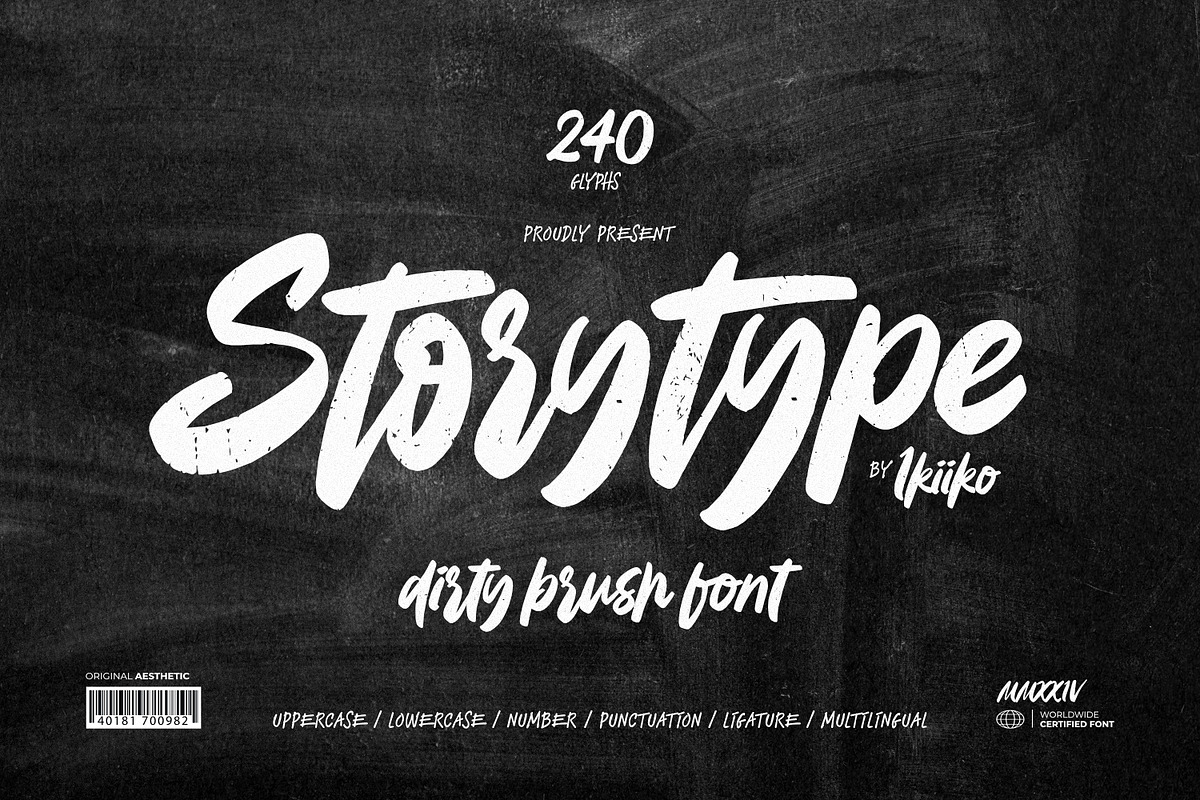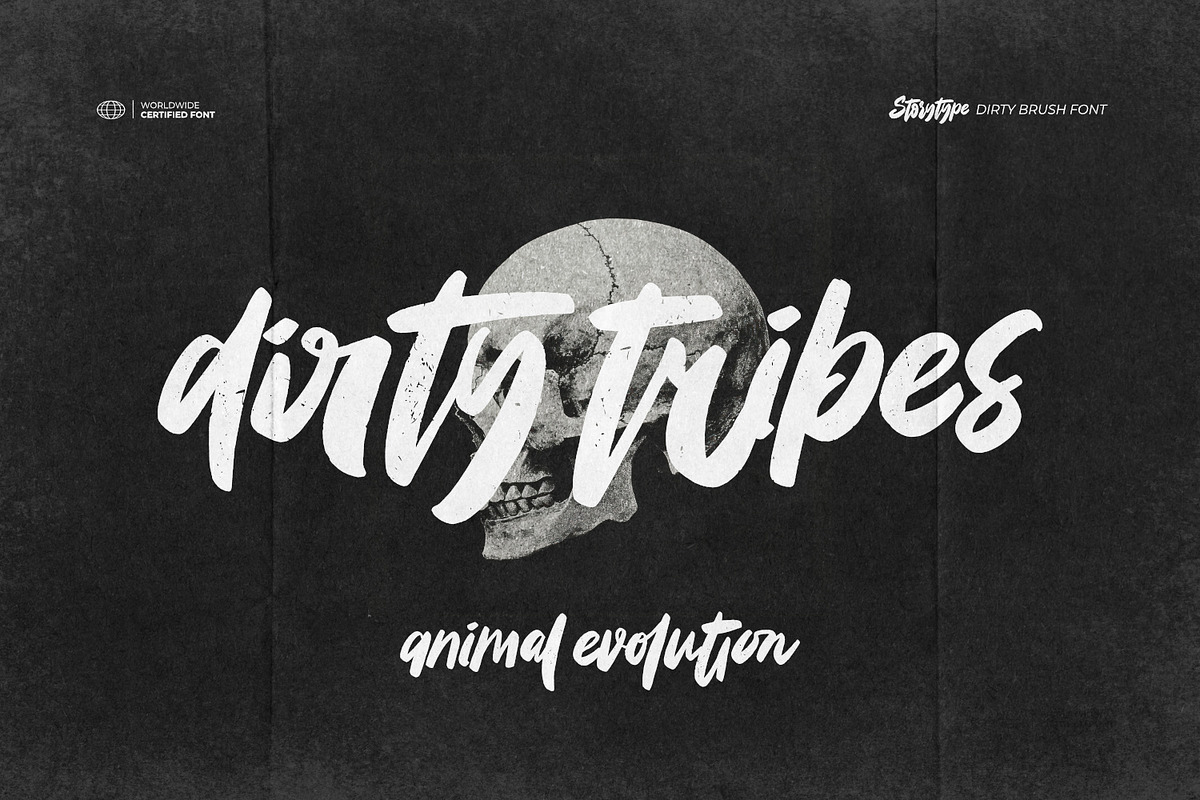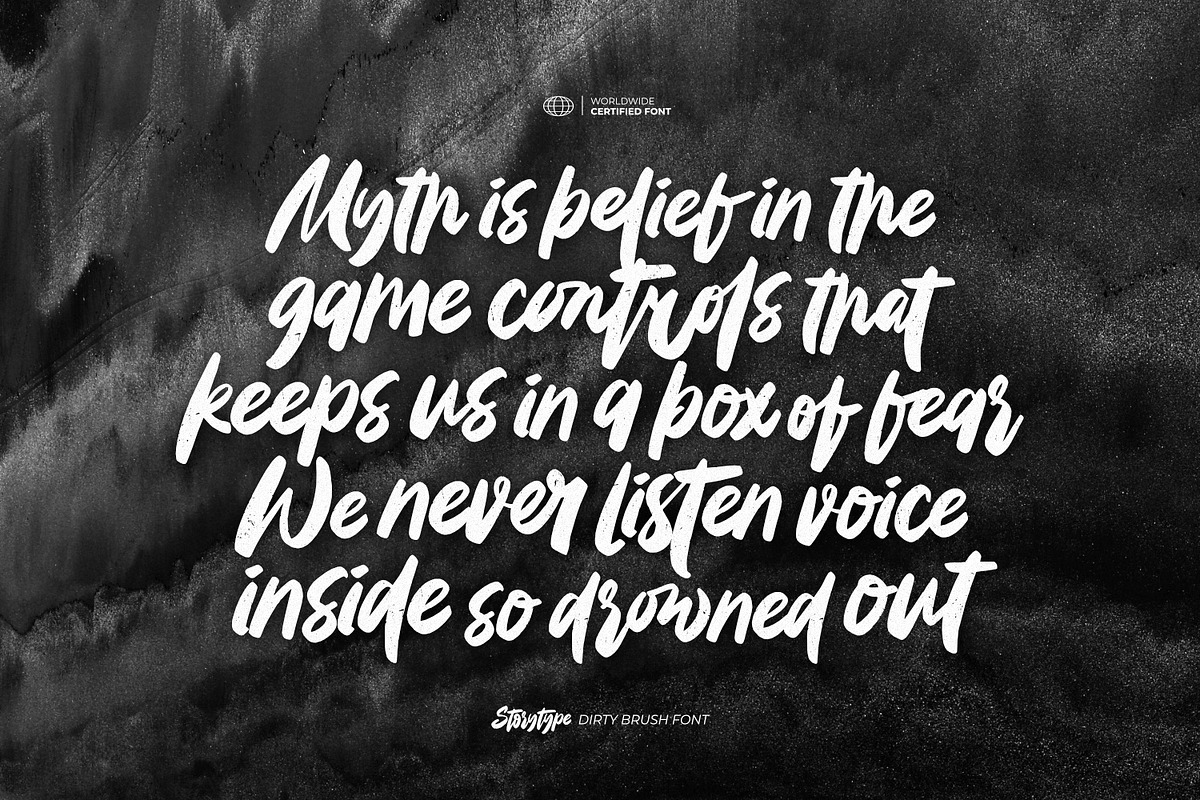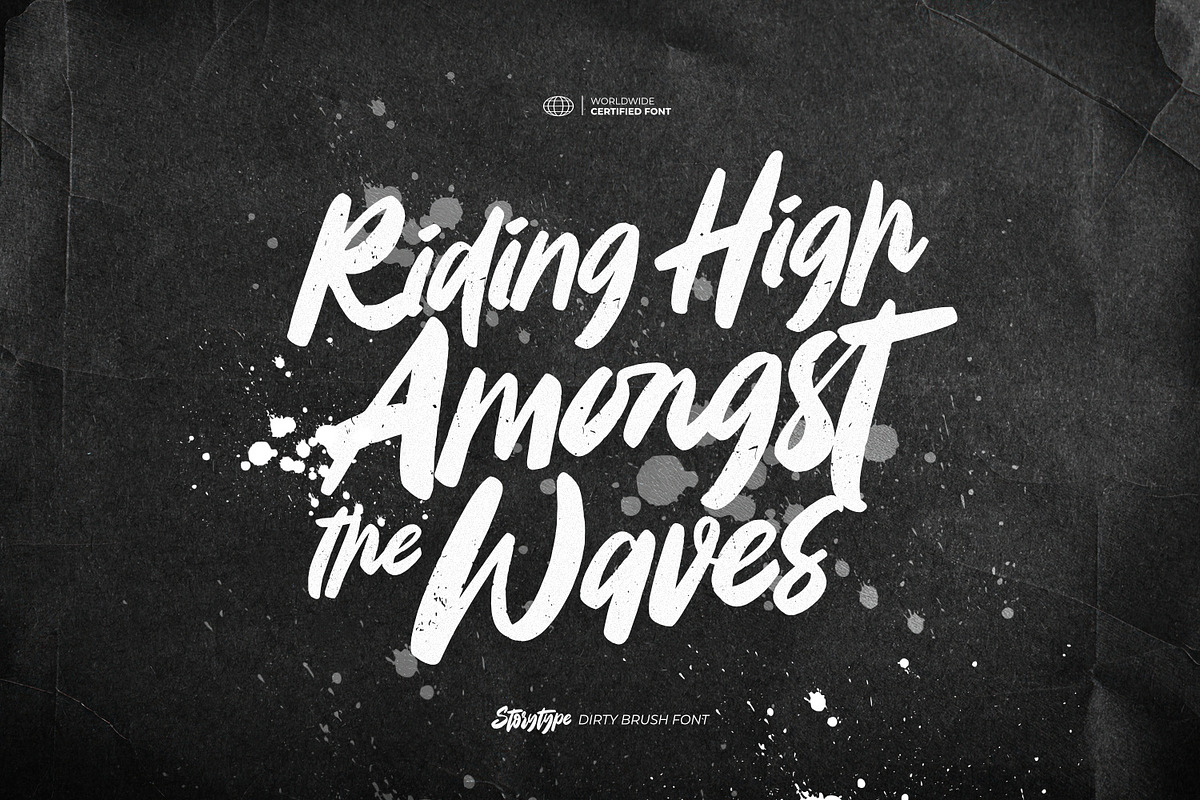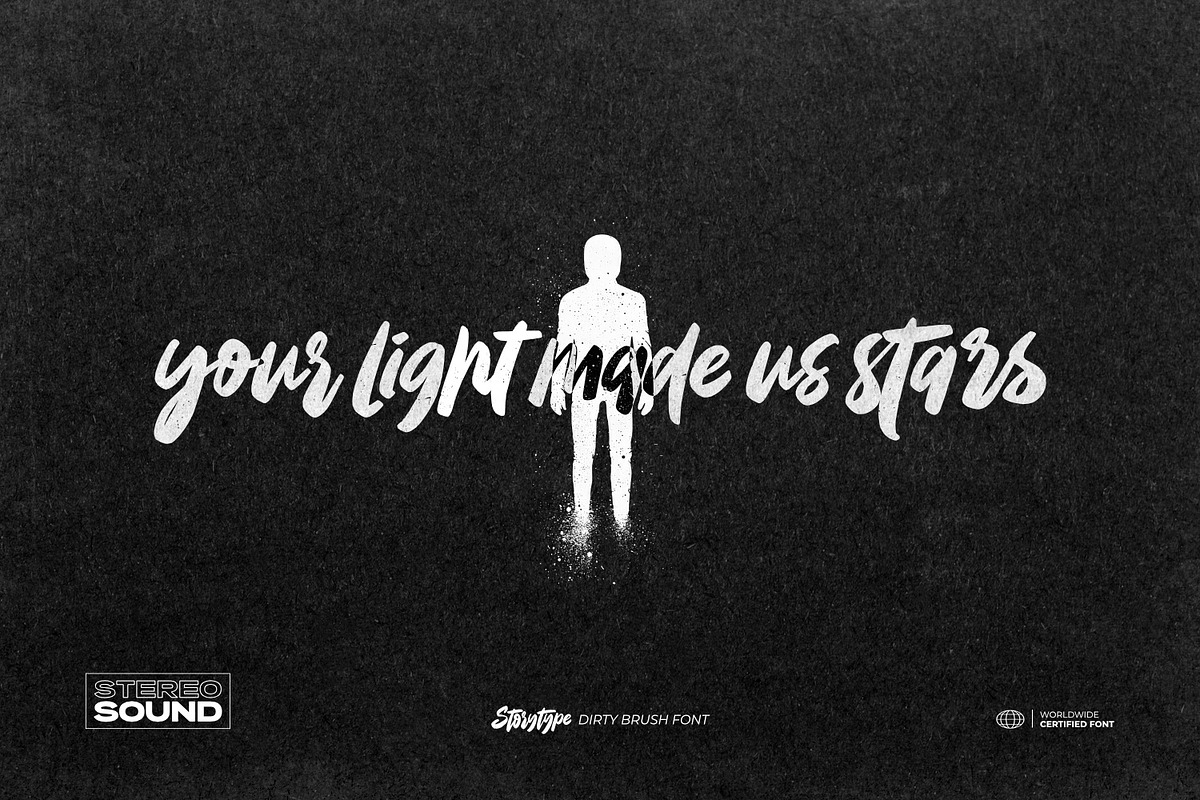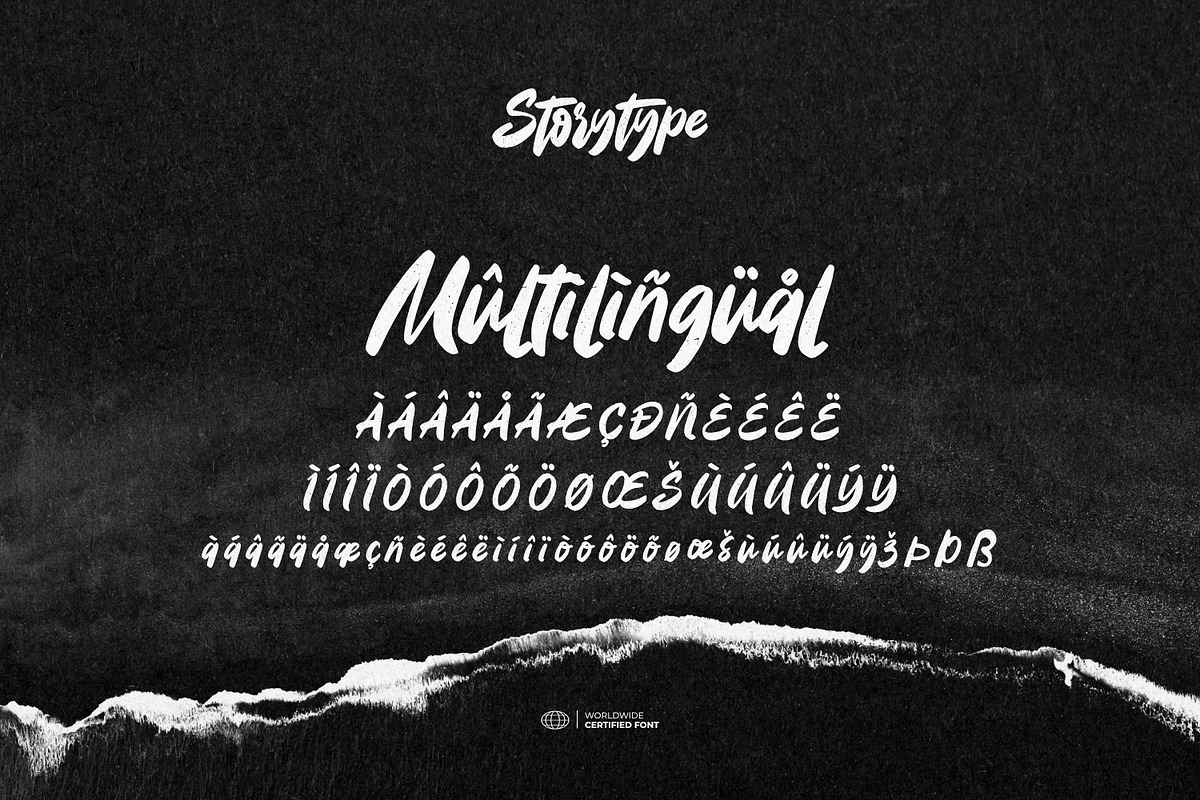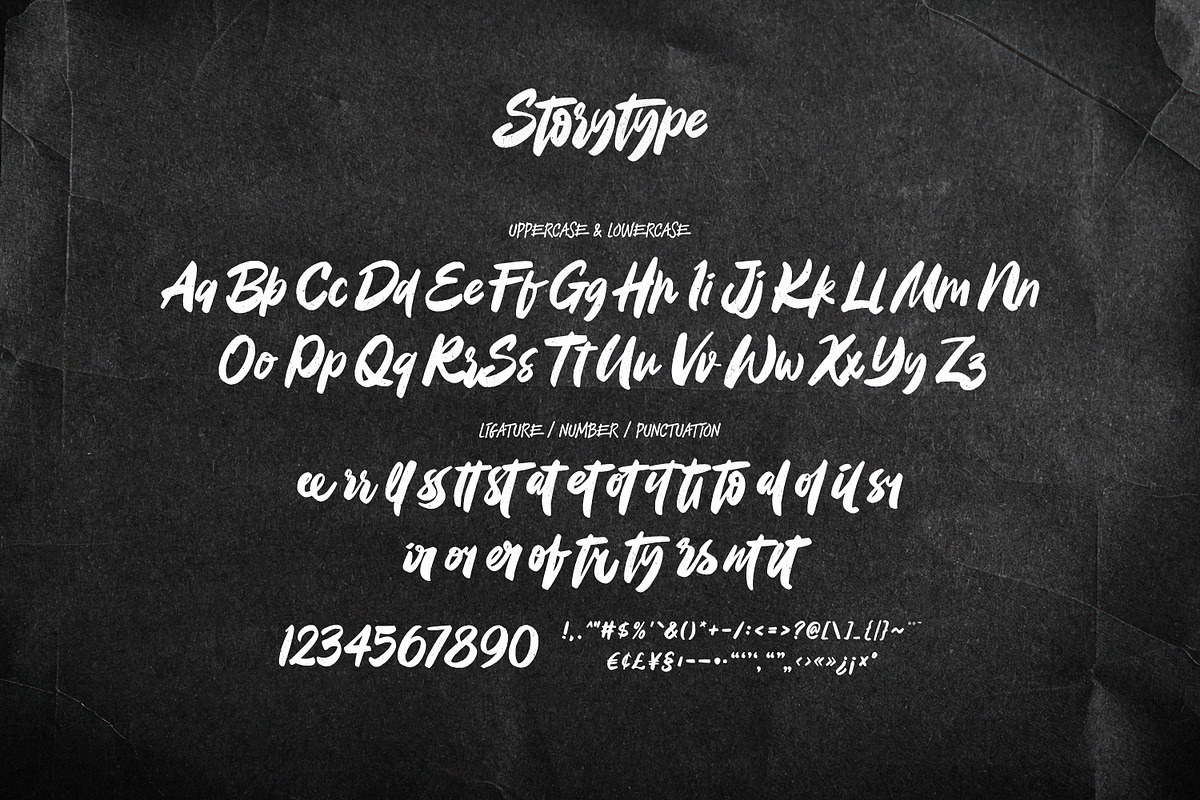
Storytype - Dirty Brush Font
Proudly present Storytype - Dirty Brush Font, created by ikiiko.
Storytype is more than just a font; it’s an artistic expression in every stroke. Crafted with the energy of a hand brush, this typeface carries a sense of raw emotion and untamed creativity. Each letter feels alive, with bold brush strokes and a rough texture that tell a story of passion and movement.
Perfect for those who dare to stand out, Storytype brings an expressive, organic, and artsy touch to your designs. Whether you're designing edgy posters, rebellious logos, or statement headlines, this font transforms every word into a bold visual experience.